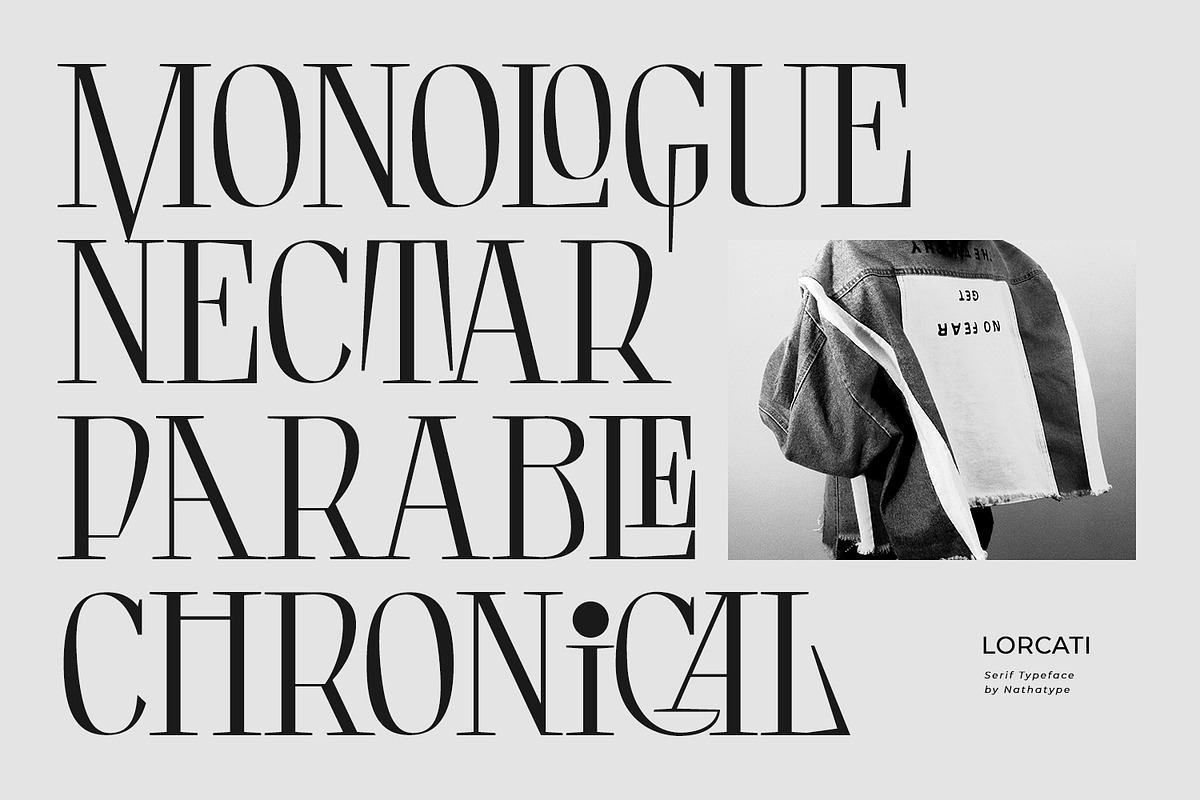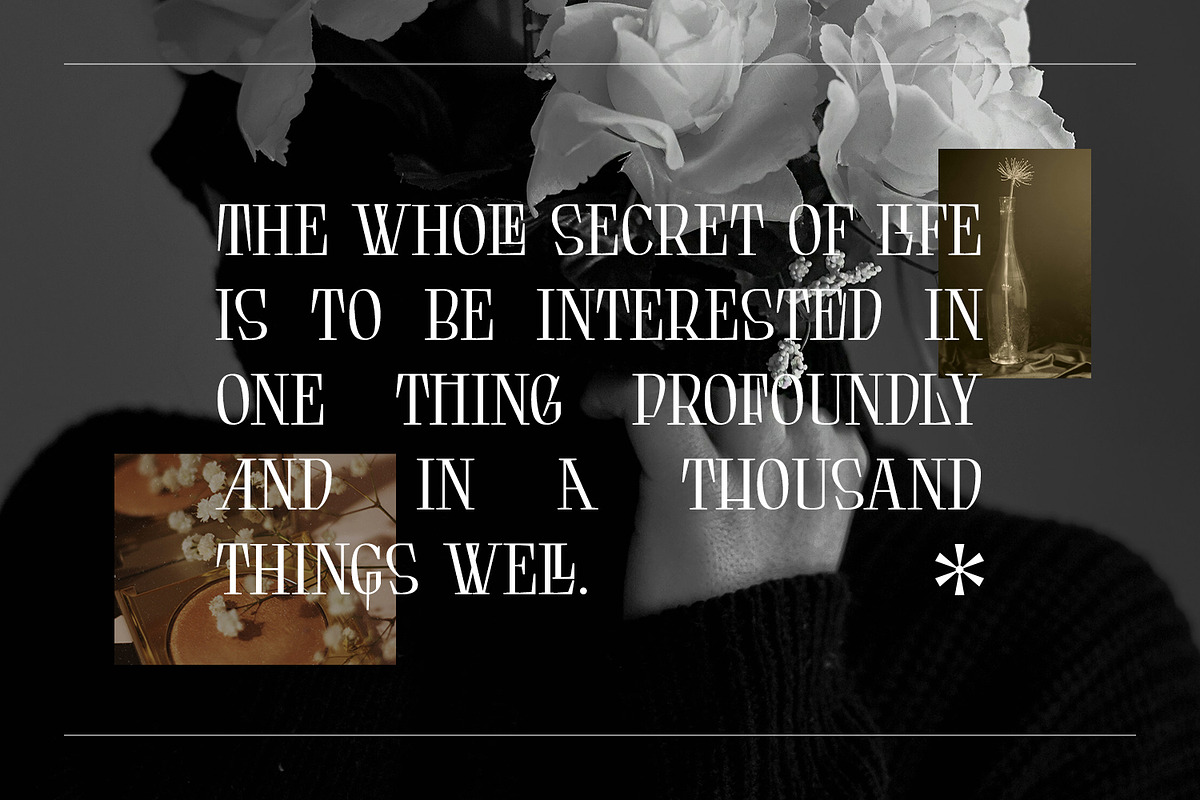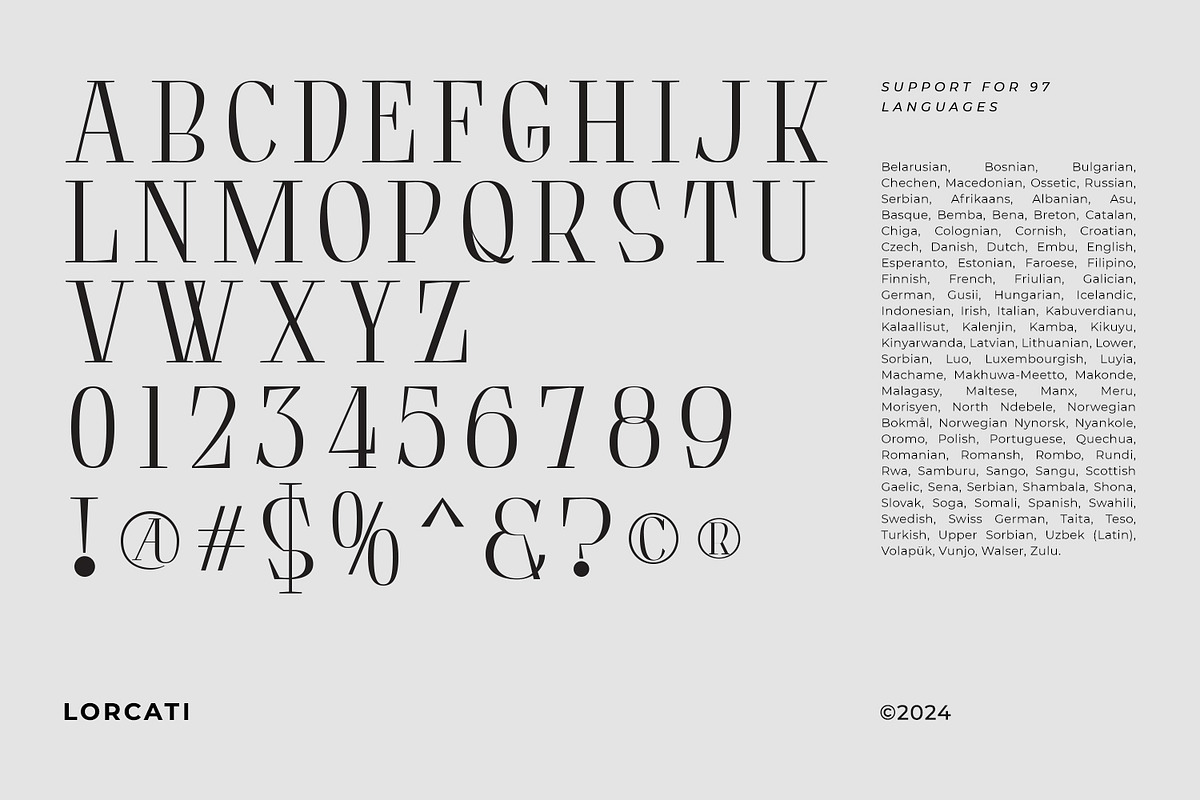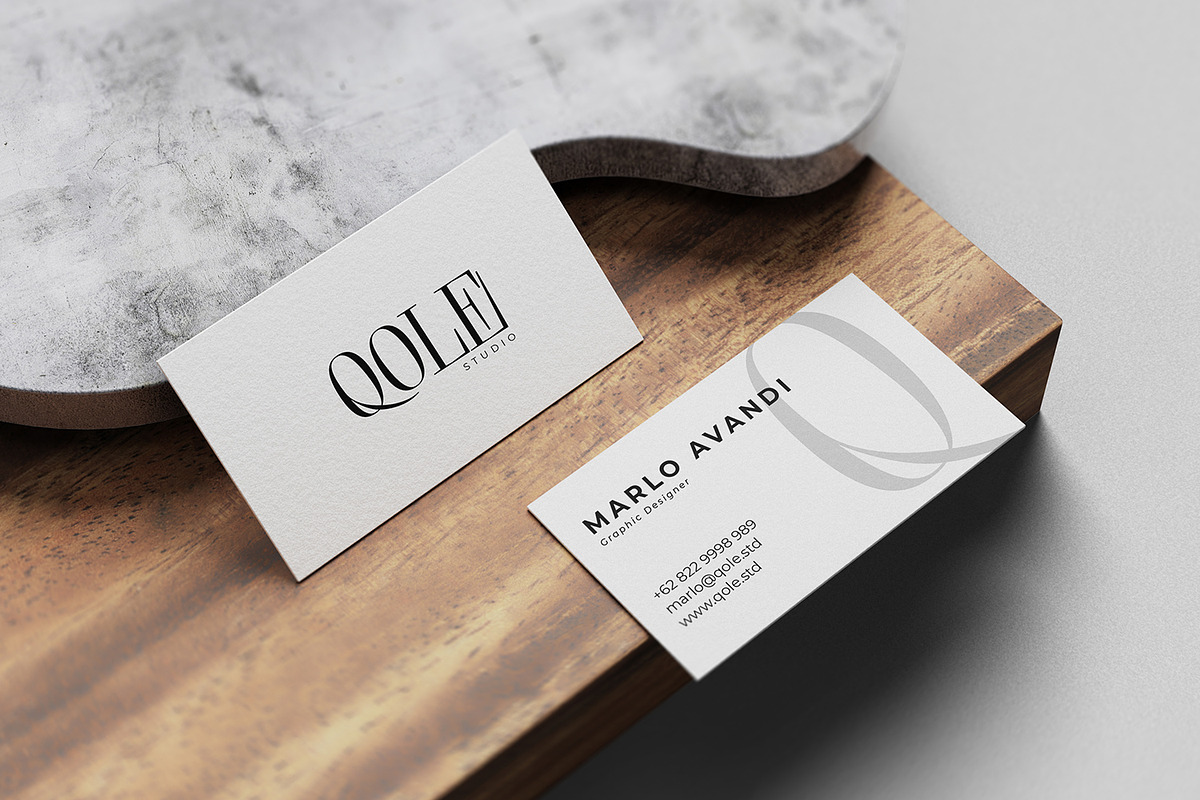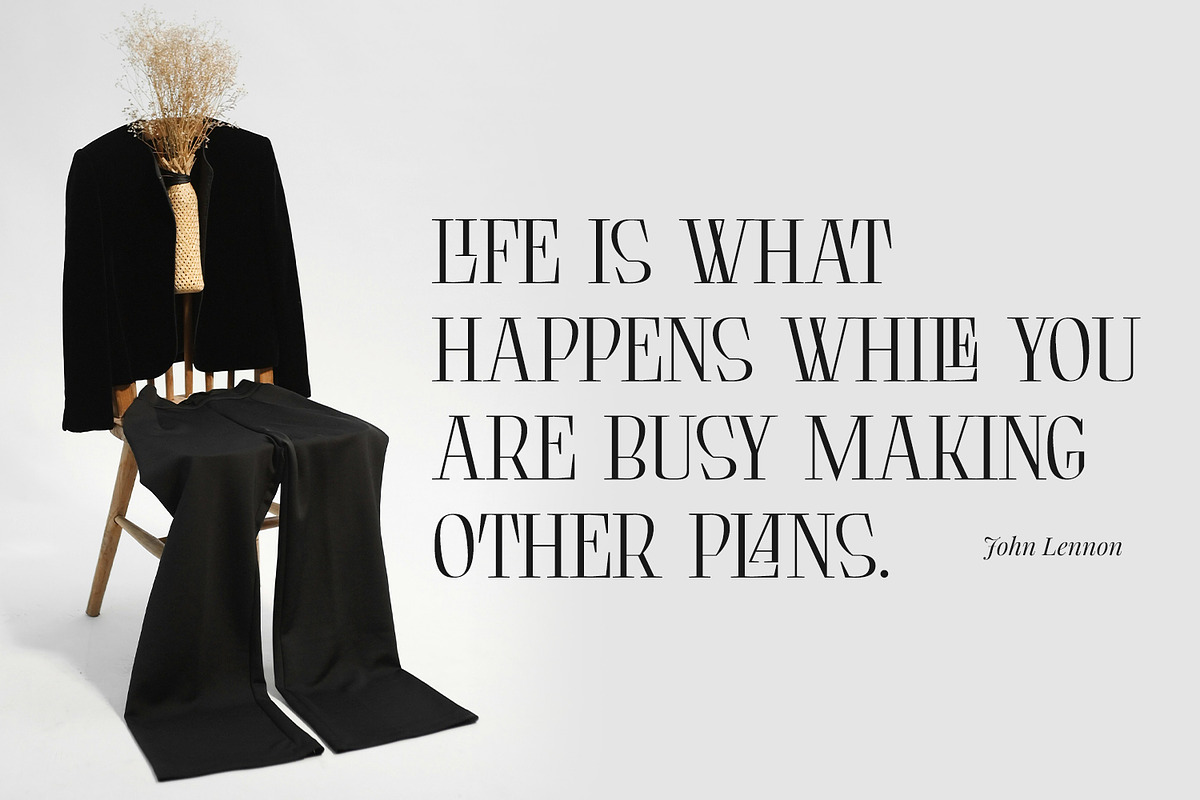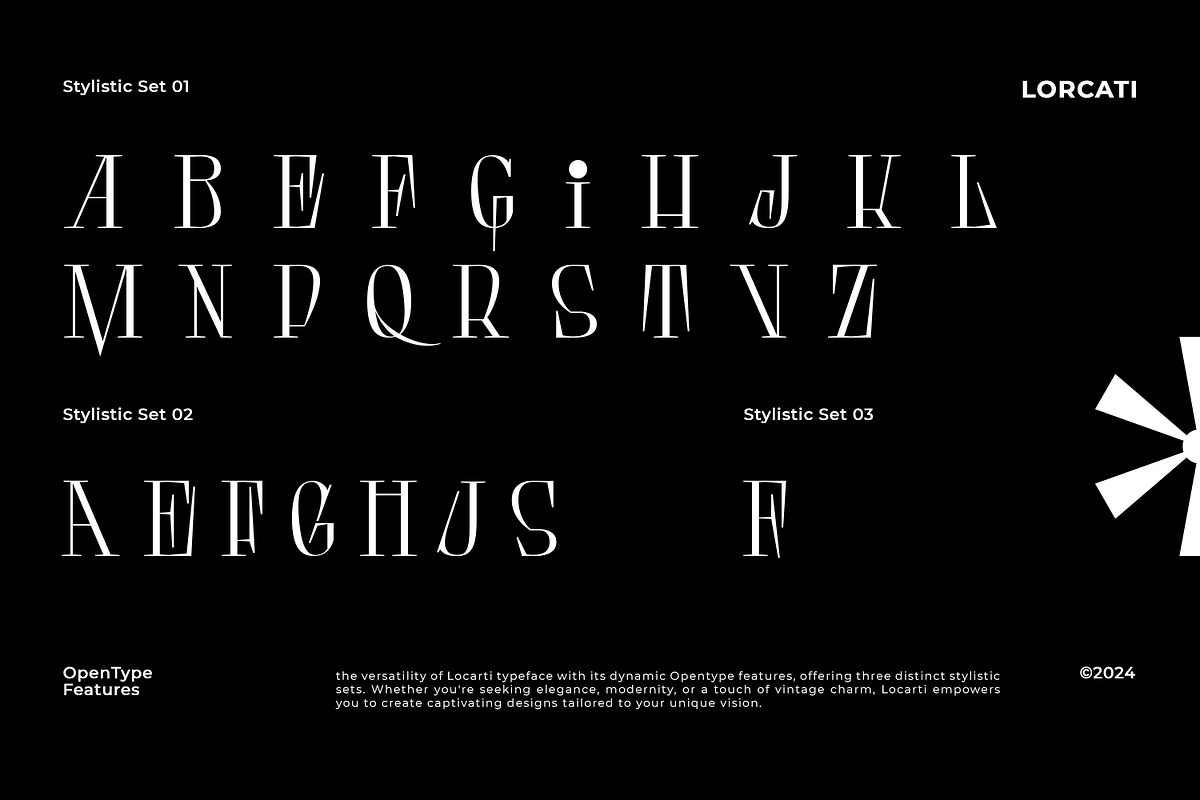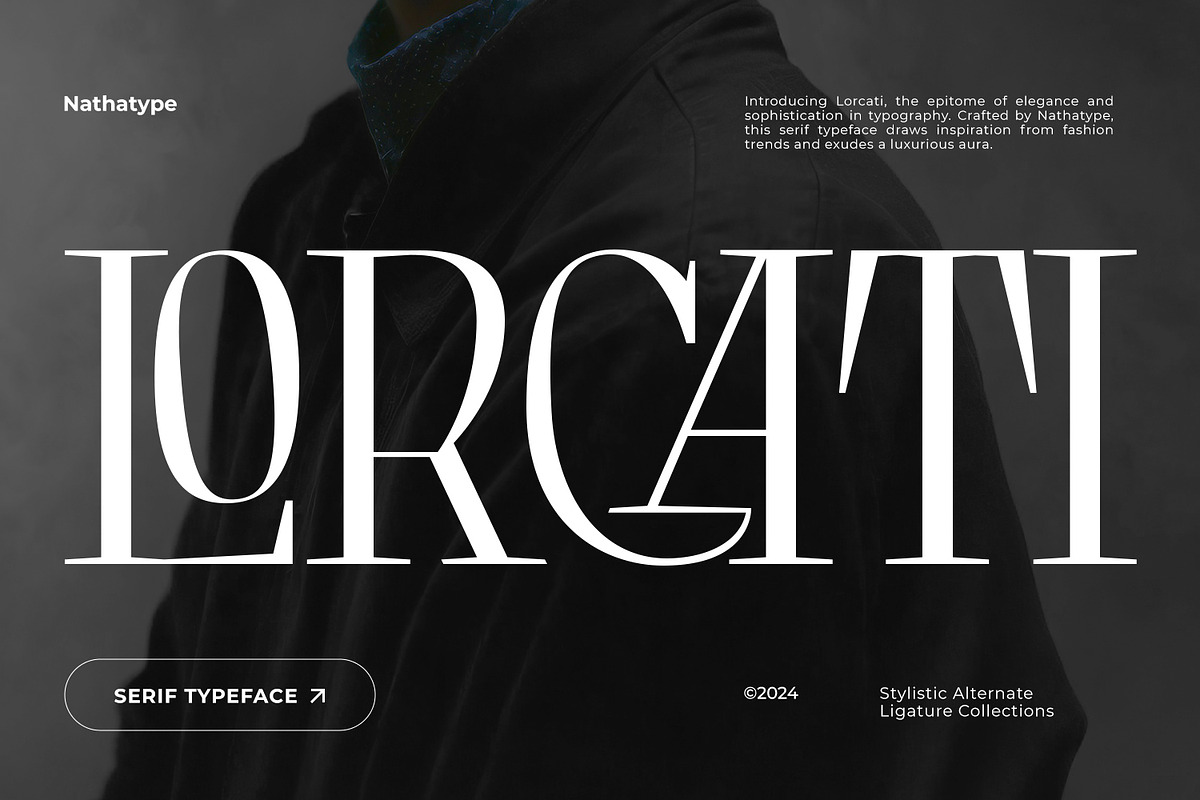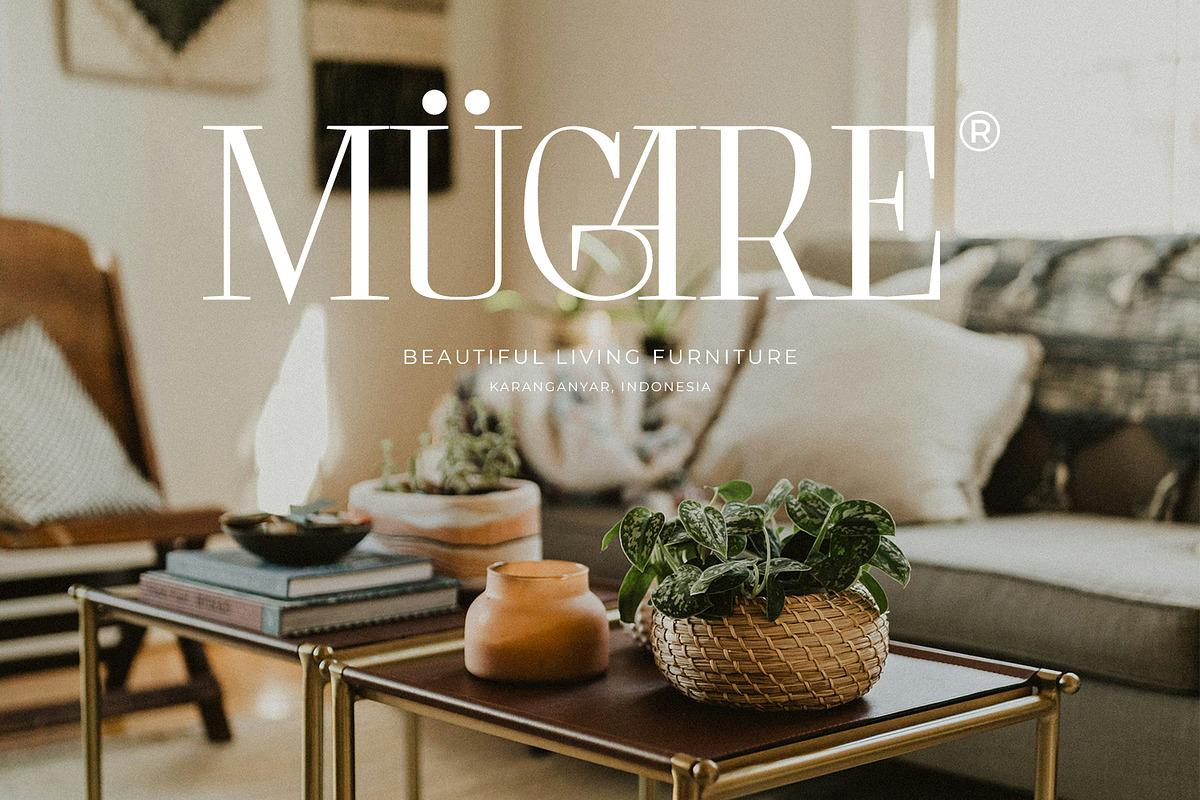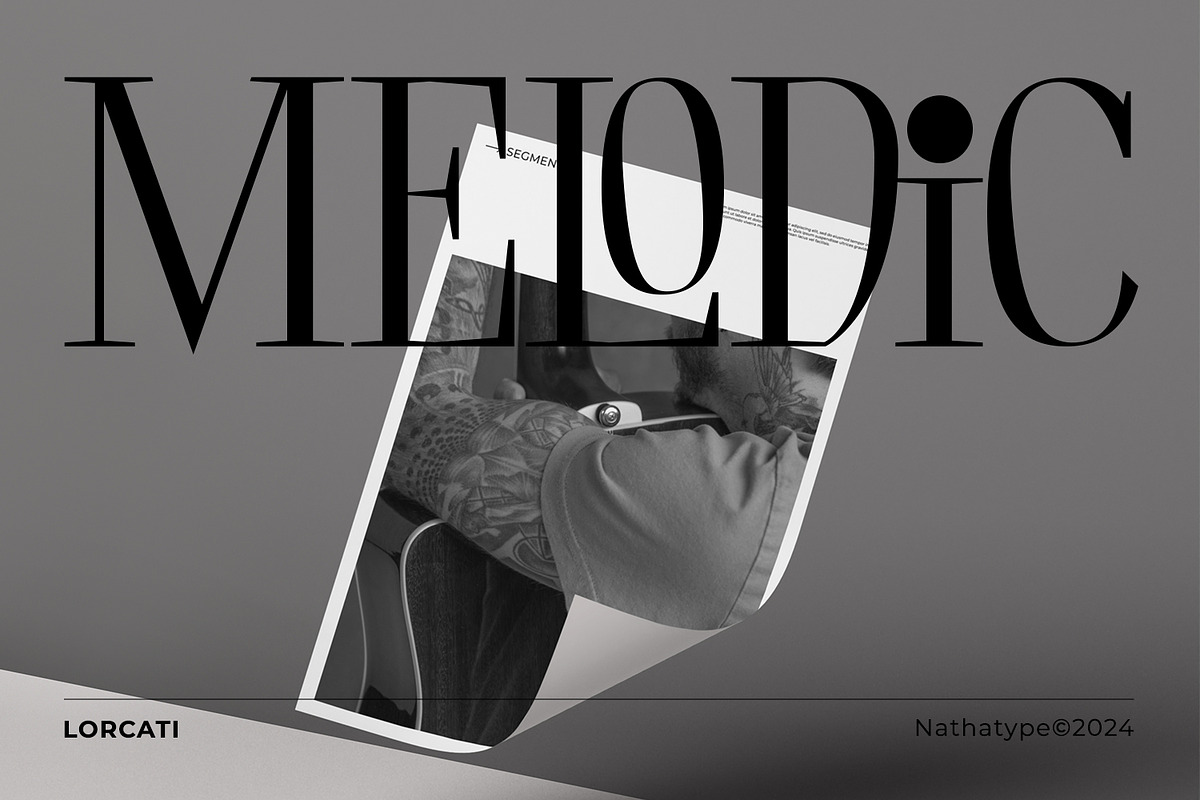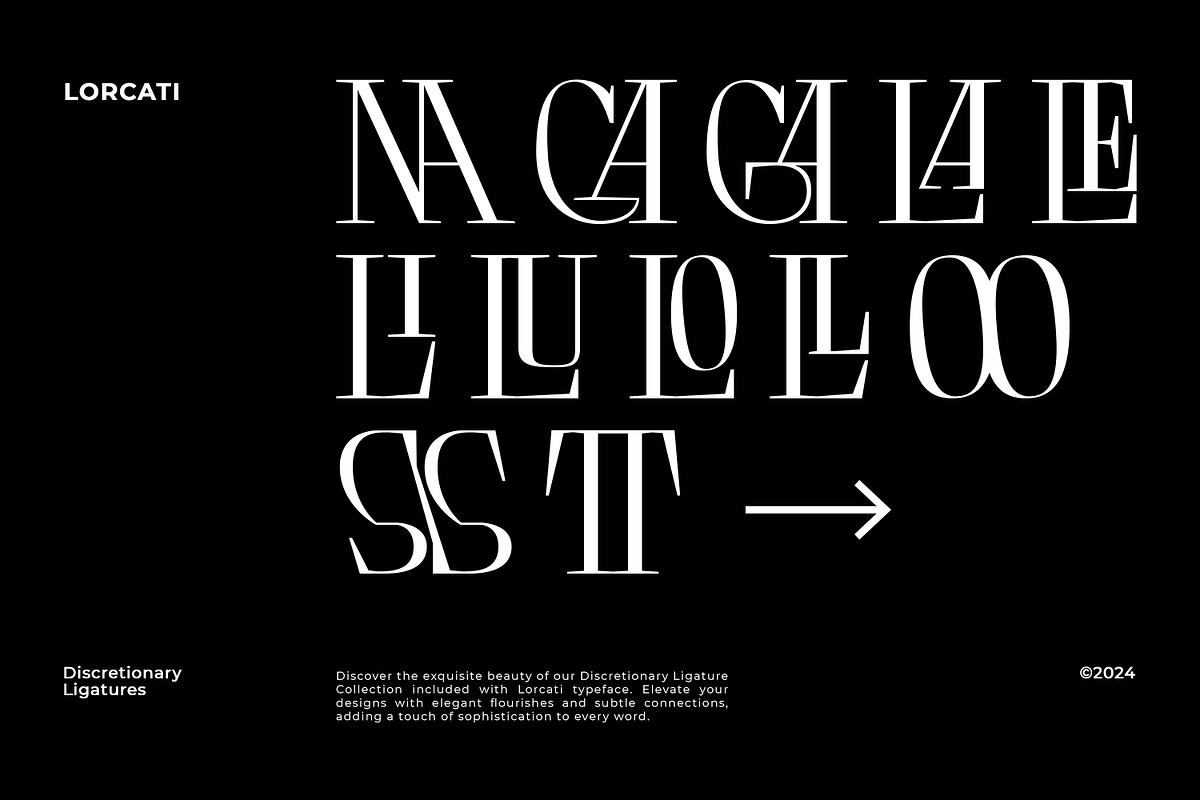
Lorcati
Lorcati is a refined serif font that captivates with its elegance and grace. With its large letters and light weight, Lorcati commands attention while retaining an air of understated elegance. Each letter is meticulously crafted with clean lines and balanced proportions, creating a harmonious composition that is pleasing to the eye.
Despite its lightweight design, Lorcati maintains a sense of presence and authority. Embrace the refined beauty of Lorcati and let its elegant design elevate your designs to new heights of sophistication and style. In addition, enjoy the features here.
- Stylistic Sets
Lorcati fits in headlines, logos, posters, flyers, branding materials, greeting cards, print media, editorial layouts, and many more designs. Find out more ways to use this font by taking a look at the font preview.